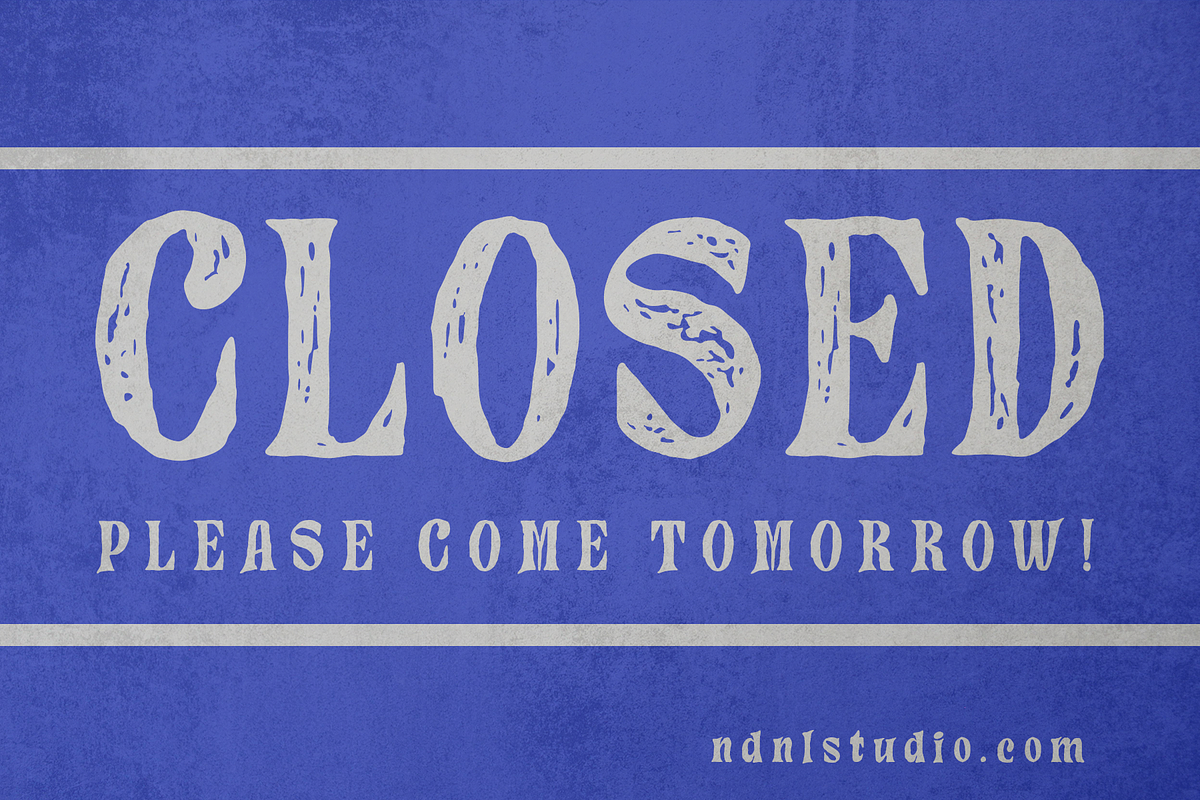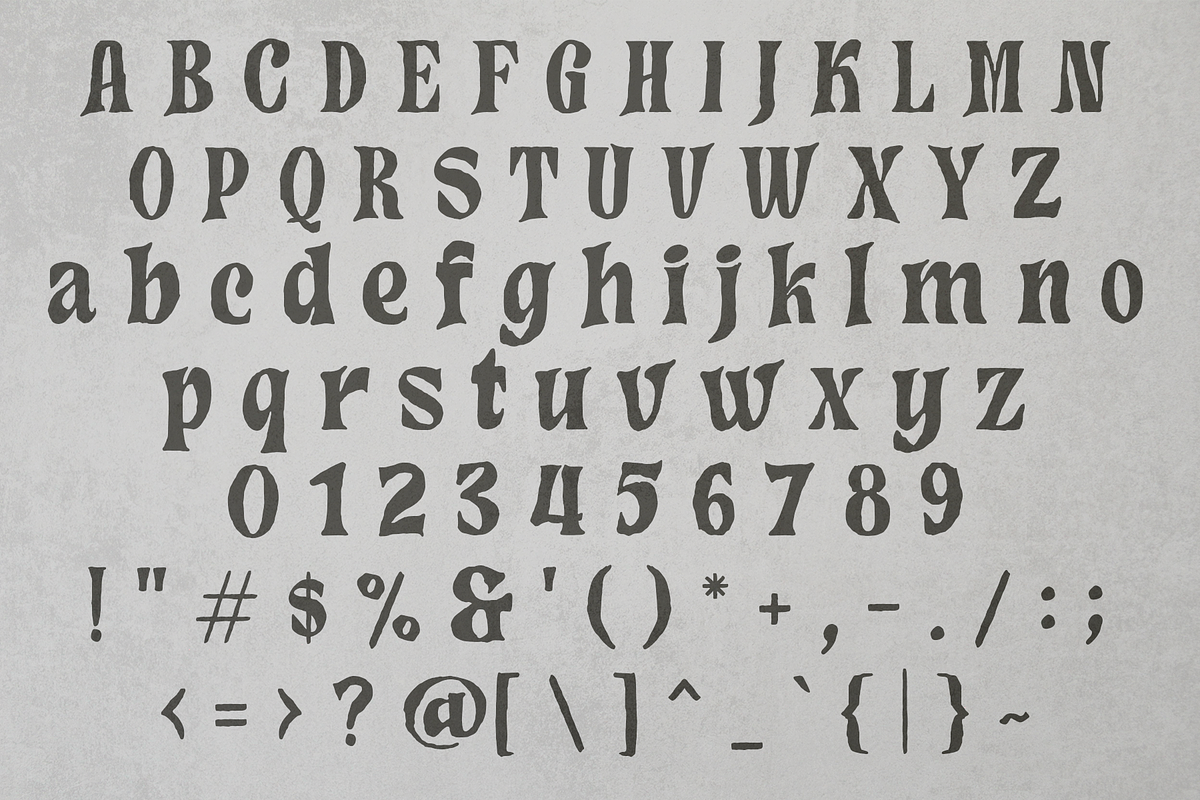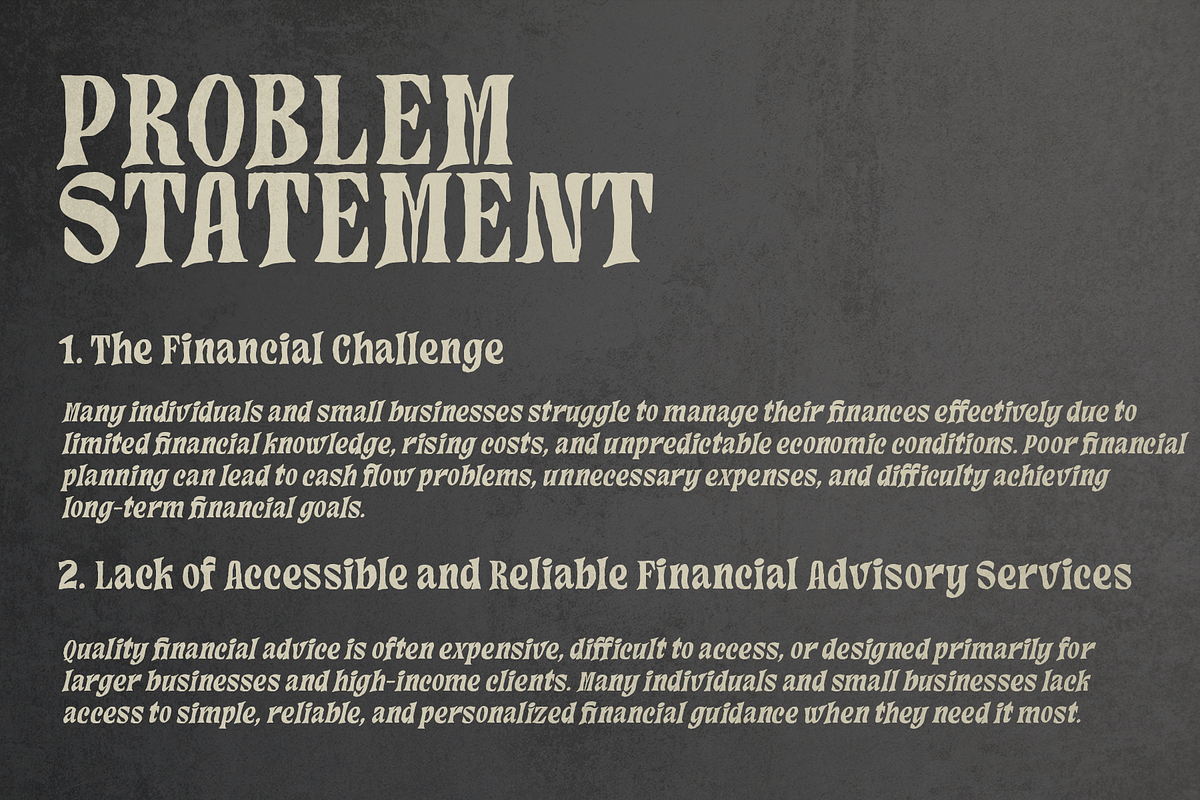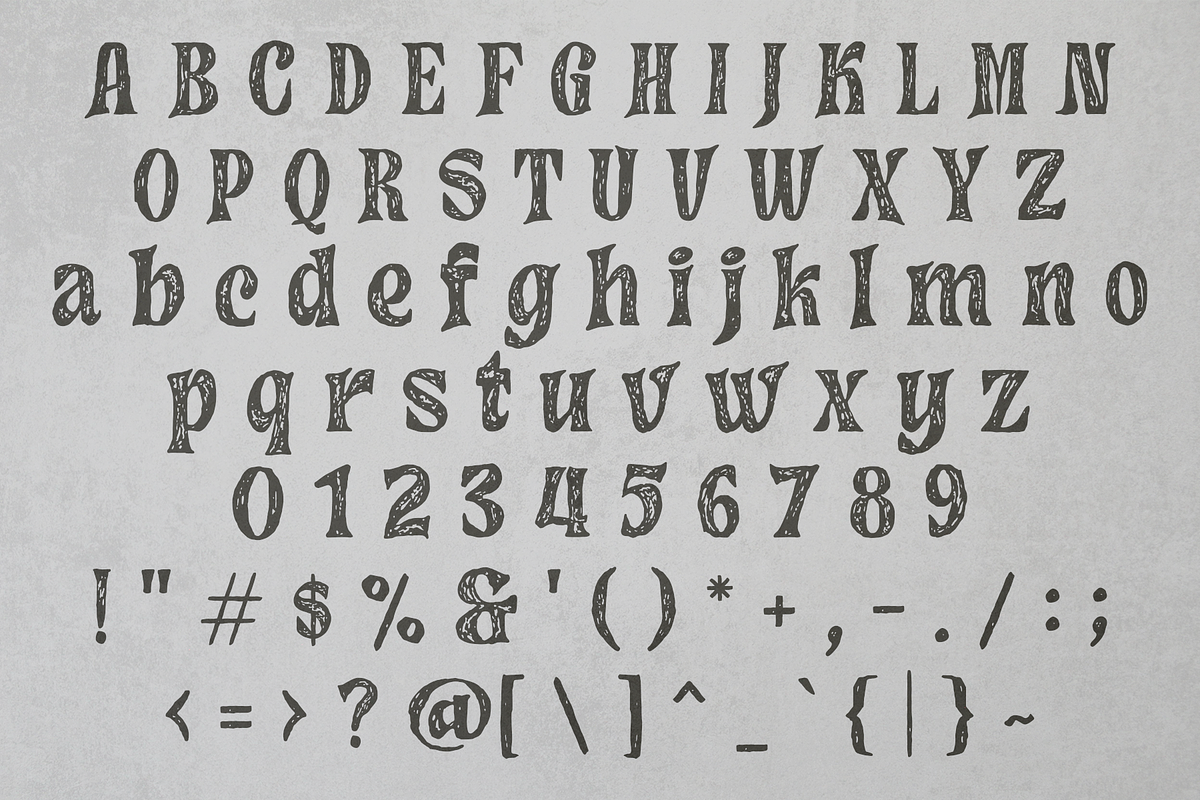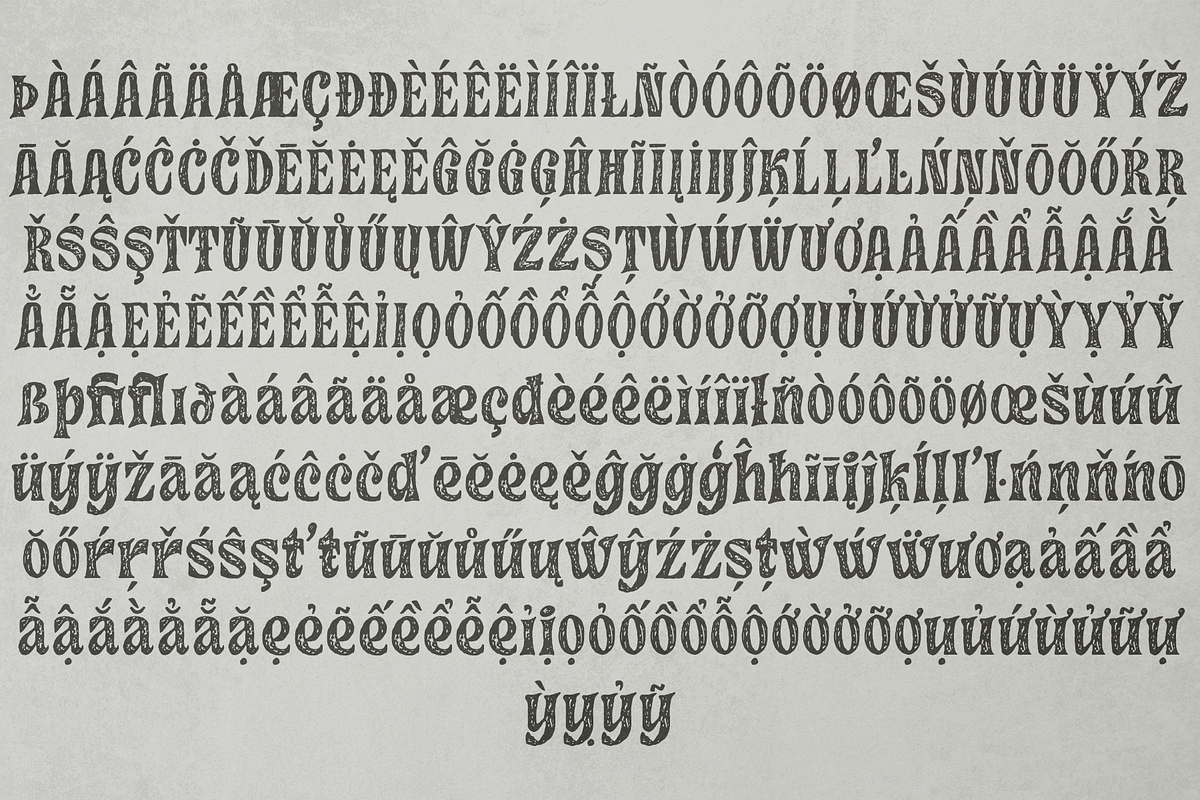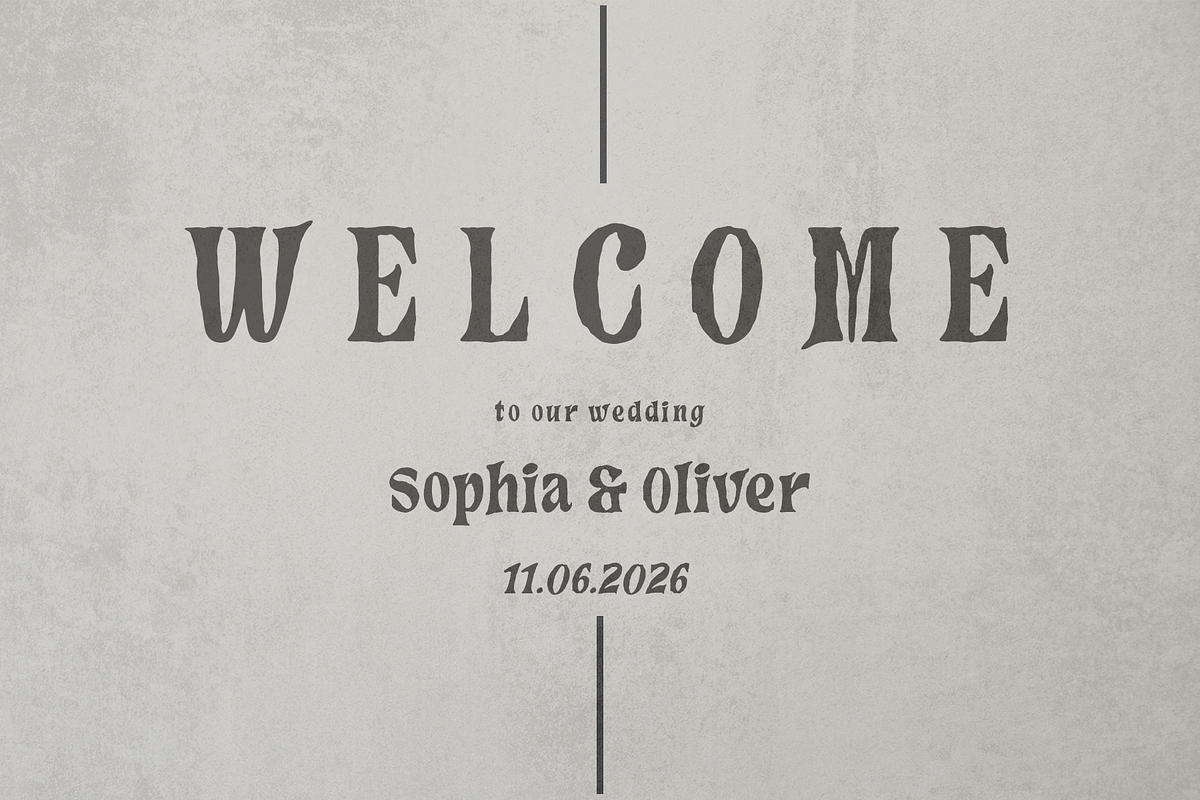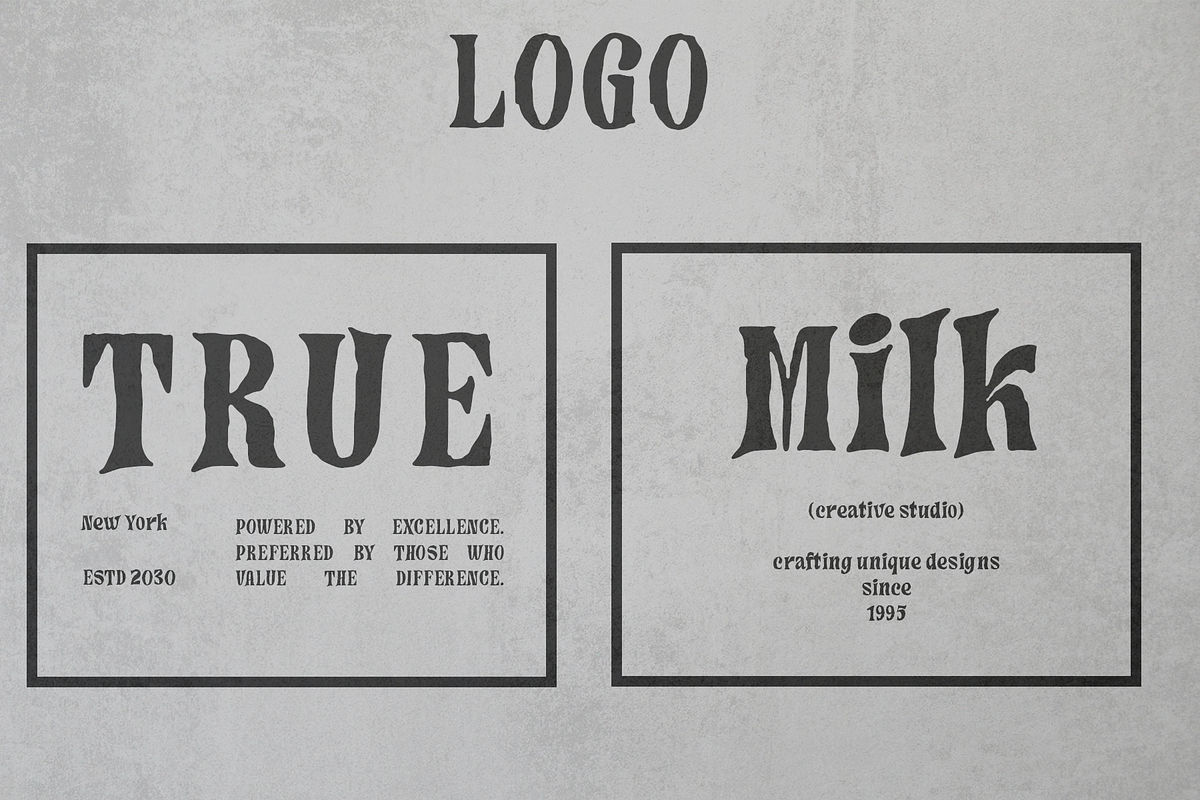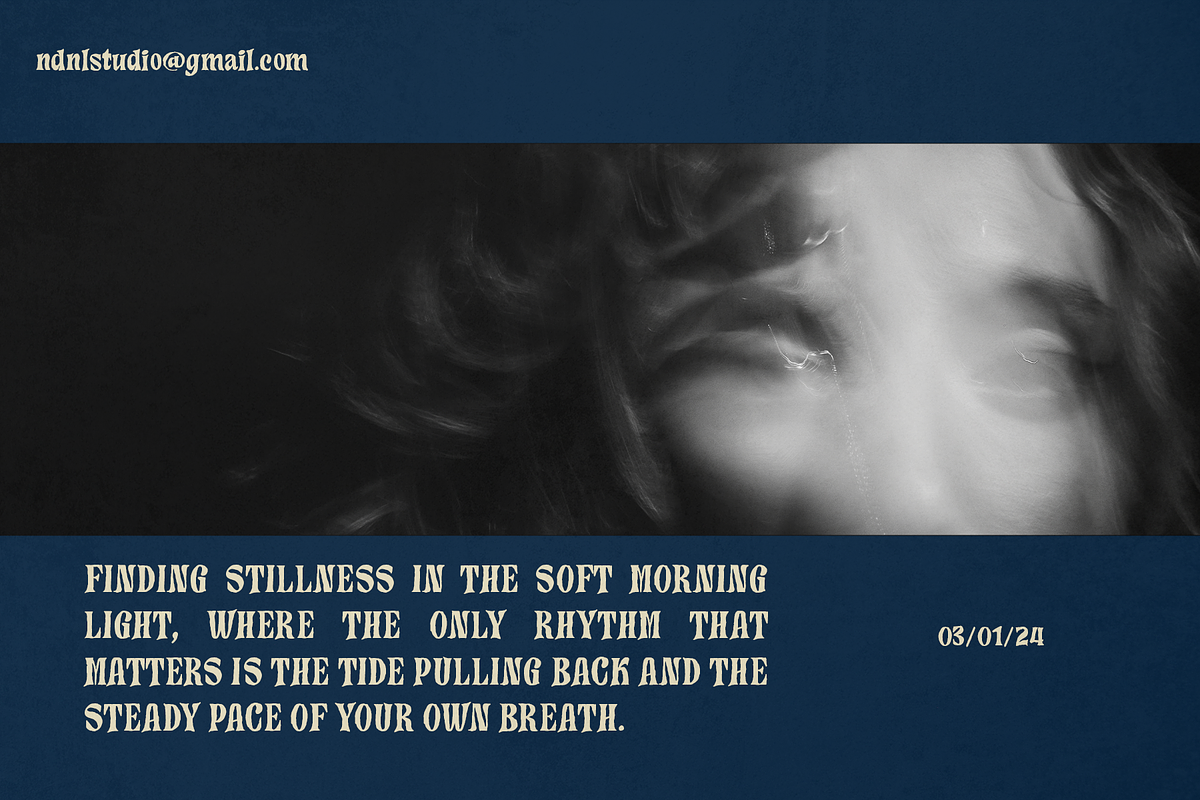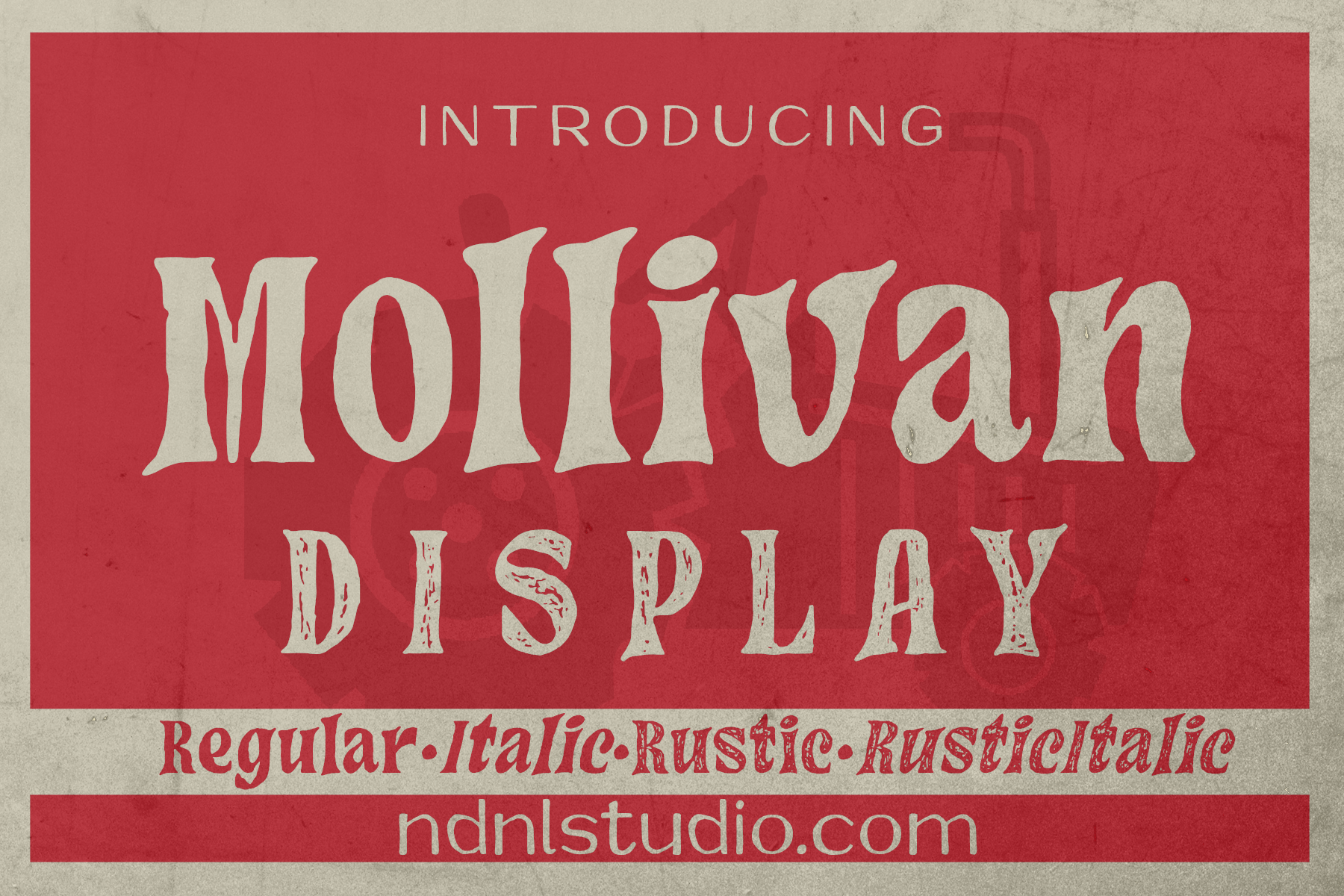
Mollivan – Serif Font
Mollivan is a distinctive vintage display font inspired by classic Western and retro typography. Its bold, expressive letterforms are combined with rough, distressed details that give the typeface an authentic aged character and a strong handcrafted feel.
With Regular, Italic, Rustic, and Rustic Italic styles, Mollivan offers plenty of flexibility for creating eye-catching designs. It is a great choice for logos, posters, badges, packaging, apparel, album covers, labels, and branding projects that need a rugged vintage atmosphere.
– Character set A-Z
– Uppercase & Lowercase
– Numerals & Punctuation
– Accented Characters (West Europe)